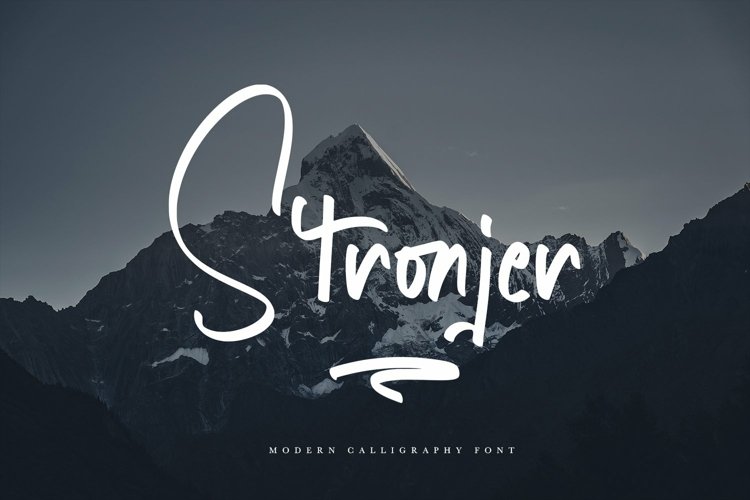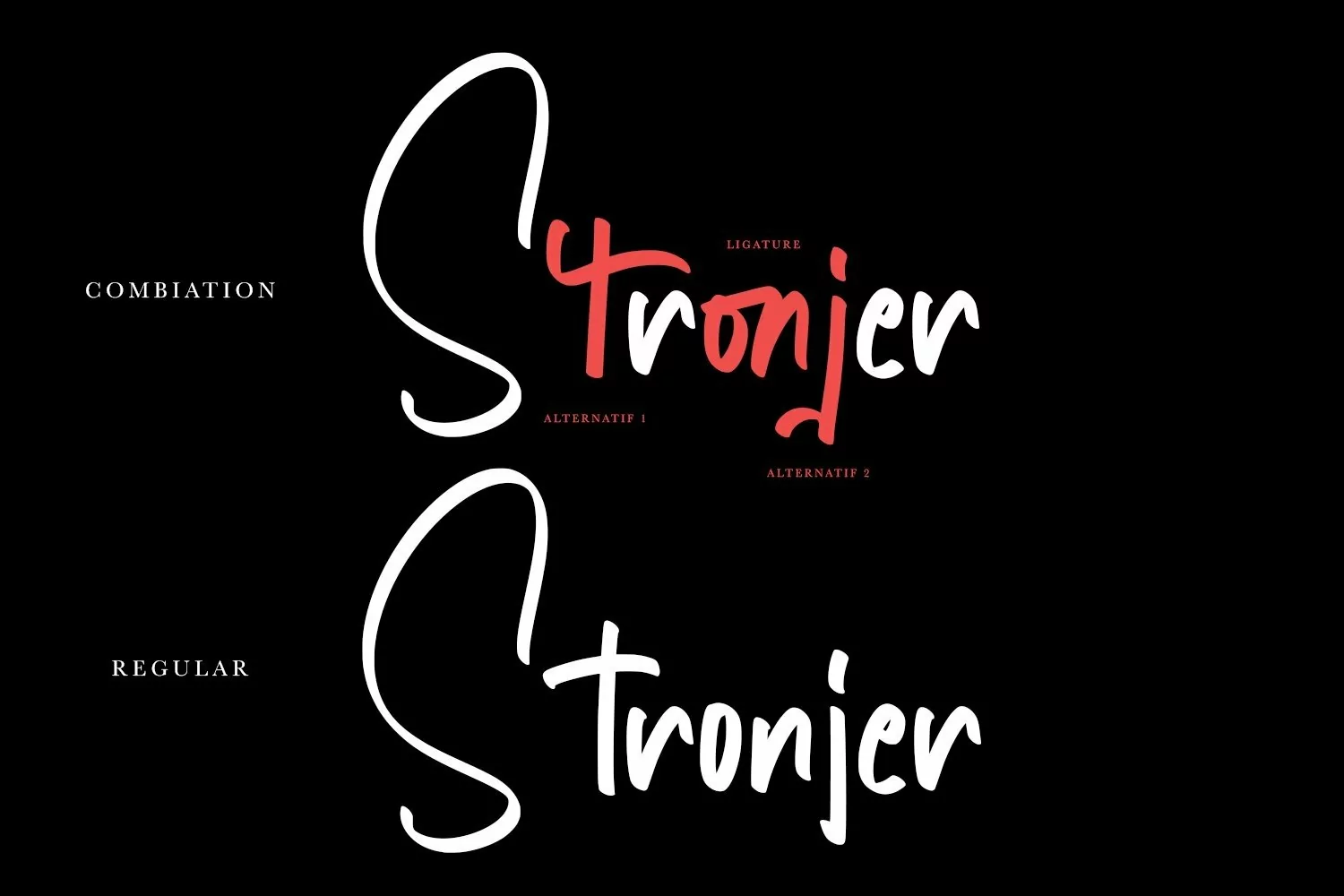
Stronjer - Script Fonts that contain lowercase, uppercase, symbol, and also support multi language. There’s a lot ligatures in this font. This Font also comes with ligatures, alternates and many more. this font suitable for fashion, branding, catalog and other design what you want.